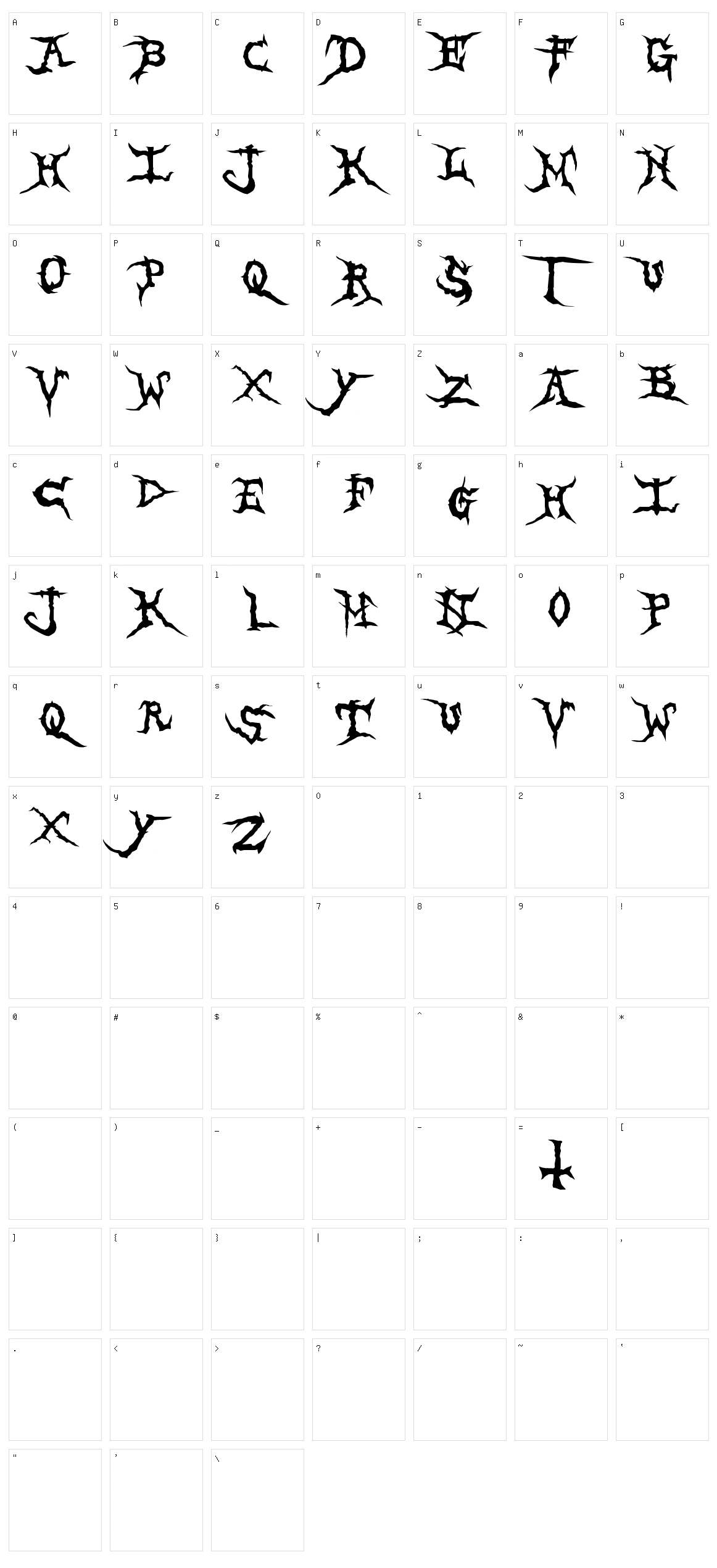
The free font Brutal Tooth is carefully designed by Kirk Shelton, showcasing a thoughtful balance of creativity and usability and falls under the Horror font style. When you download the ZIP file, it contains only 184.58 KB of font files, making it lightweight and quick to download. Please review the license details below to understand permitted usage and distribution rights. If license information is not available, we recommend using this font for personal projects only or contacting the author directly for commercial usage permissions.